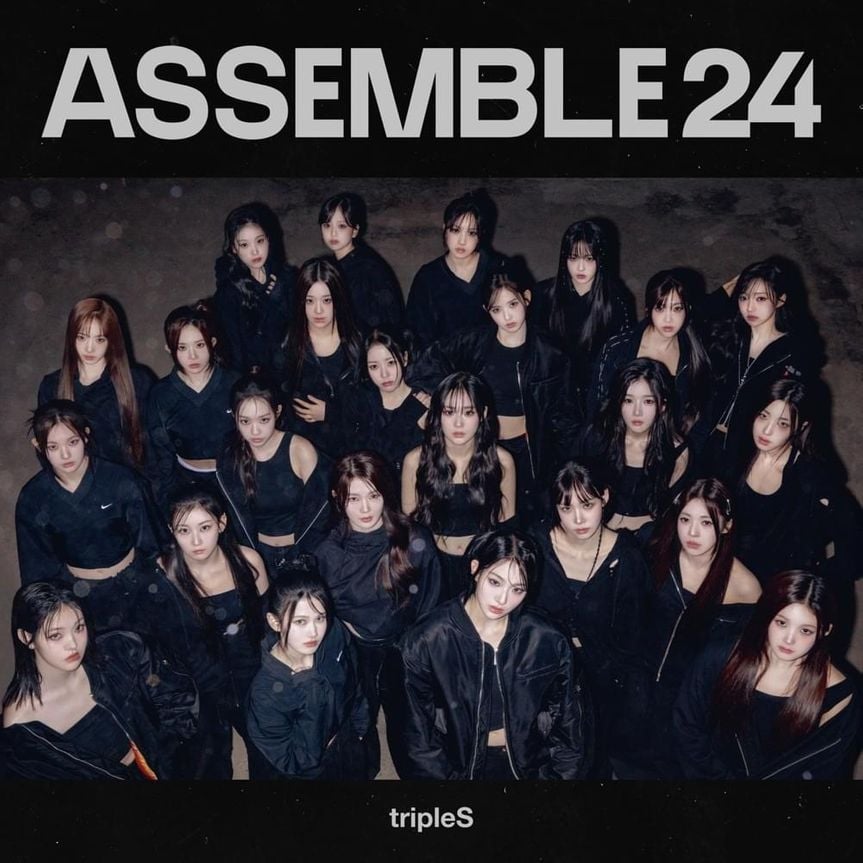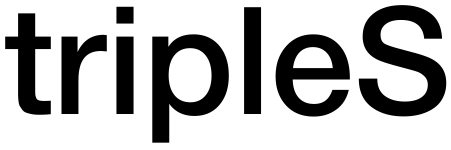
Assemble24 (Album) Font
The Assemble24 album title on the cover art is set in the Artega typeface, with tight letter spacing and alterations made to the "E" and the number "4". The font is free for personal and commercial use.
The tripleS at the bottom uses Helvetica Neue which is only available to purchase.